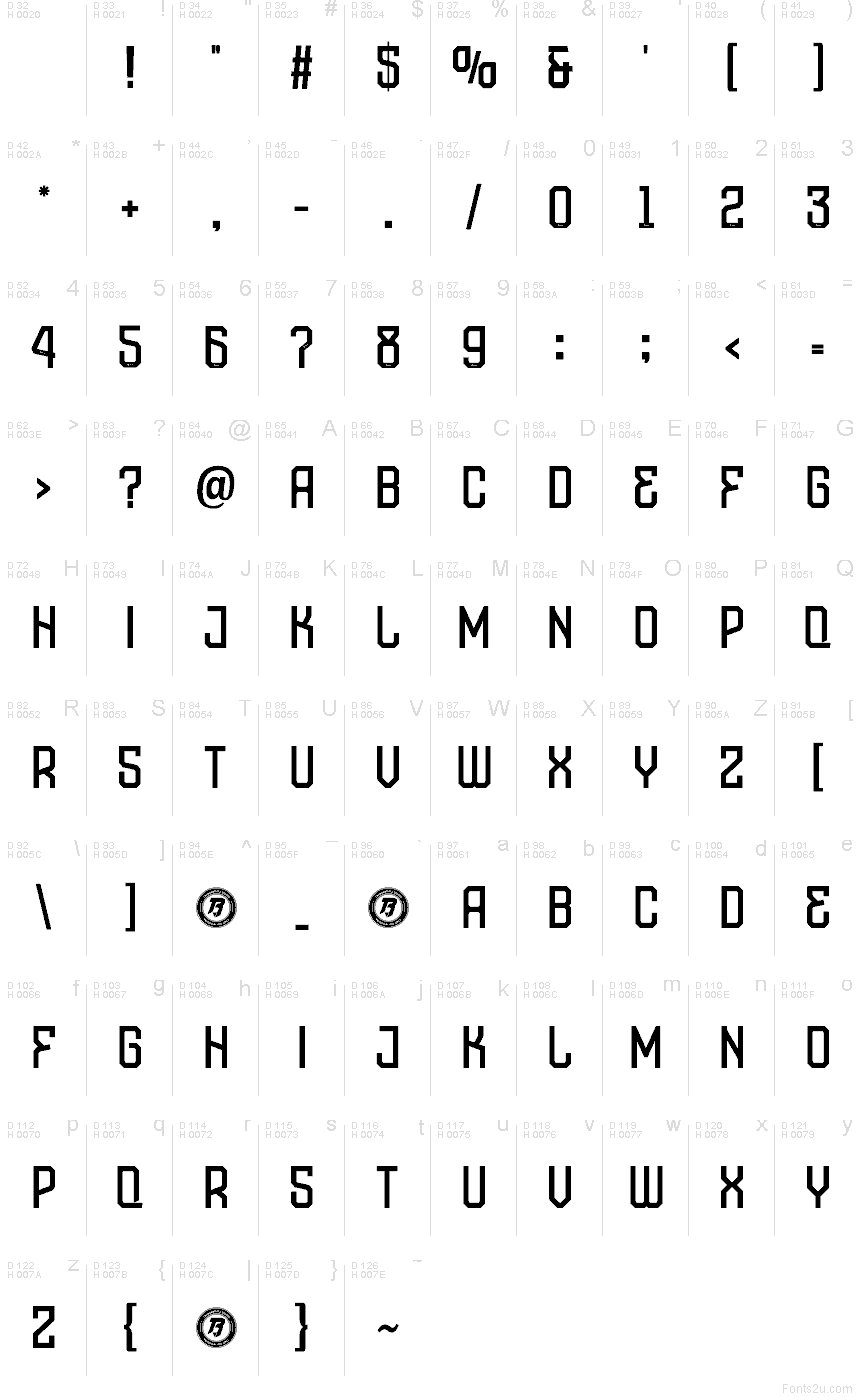
Eindhoven Personal Use XI font by Muhammad Afif Ersya of Trequartista Studio is a free techno typeface that looks like it’s been machined from steel bars and cut with a laser. Tall, ultra-compact letters stand like vertical pylons, while clipped, octagonal curves give the text a strict, engineered rhythm. The result is a bold, futuristic voice that reads as both industrial and digital, like a skyline rendered in code.
Using Eindhoven Personal Use XI, your titles instantly feel wired-in and high-energy, so it shines on sci‑fi posters, EDM flyers, gaming logos, tech branding, album covers, and streaming overlays. This free font loves big sizes and tight tracking; pair it with a simple, wide-open sans serif for supporting text to keep layouts readable and sharp.